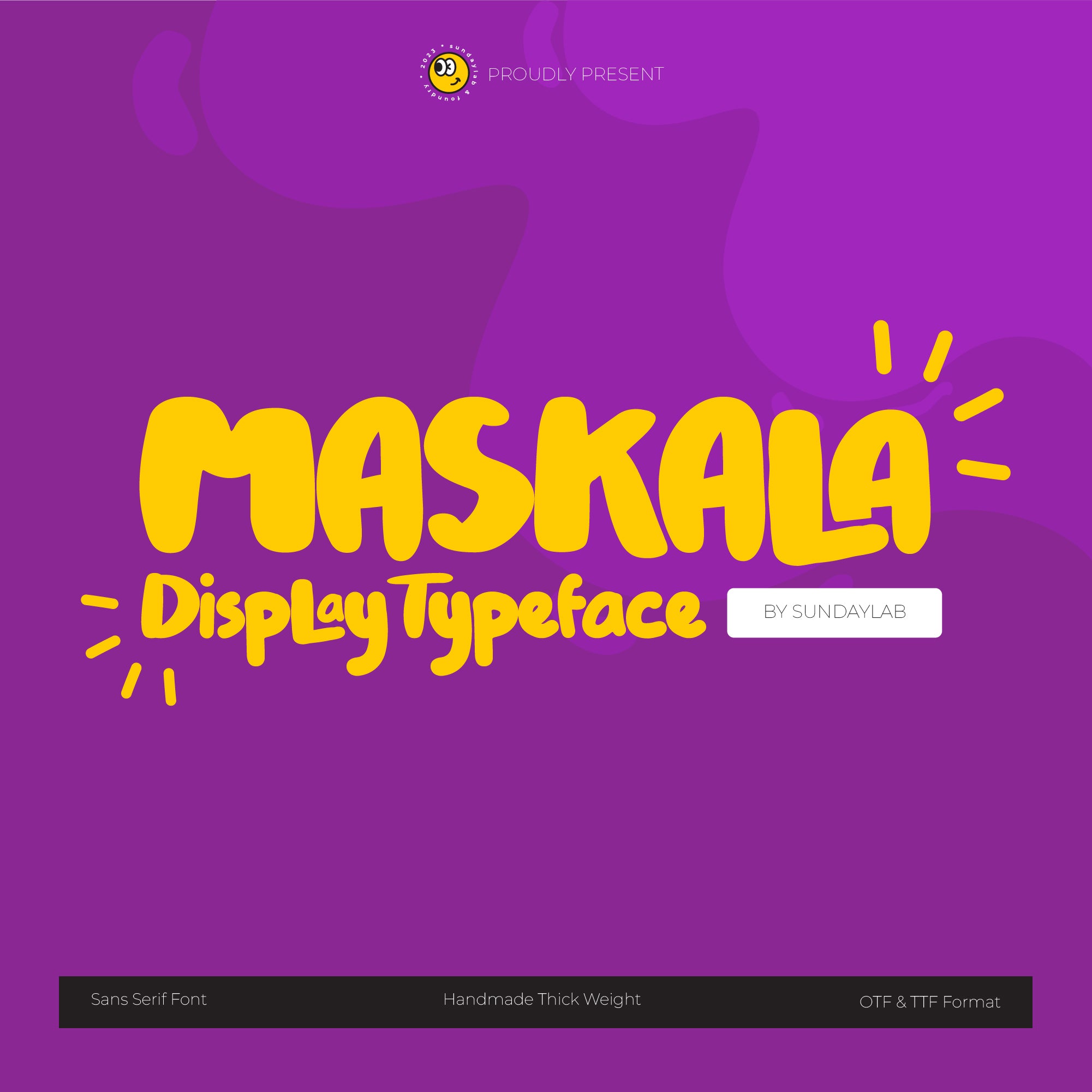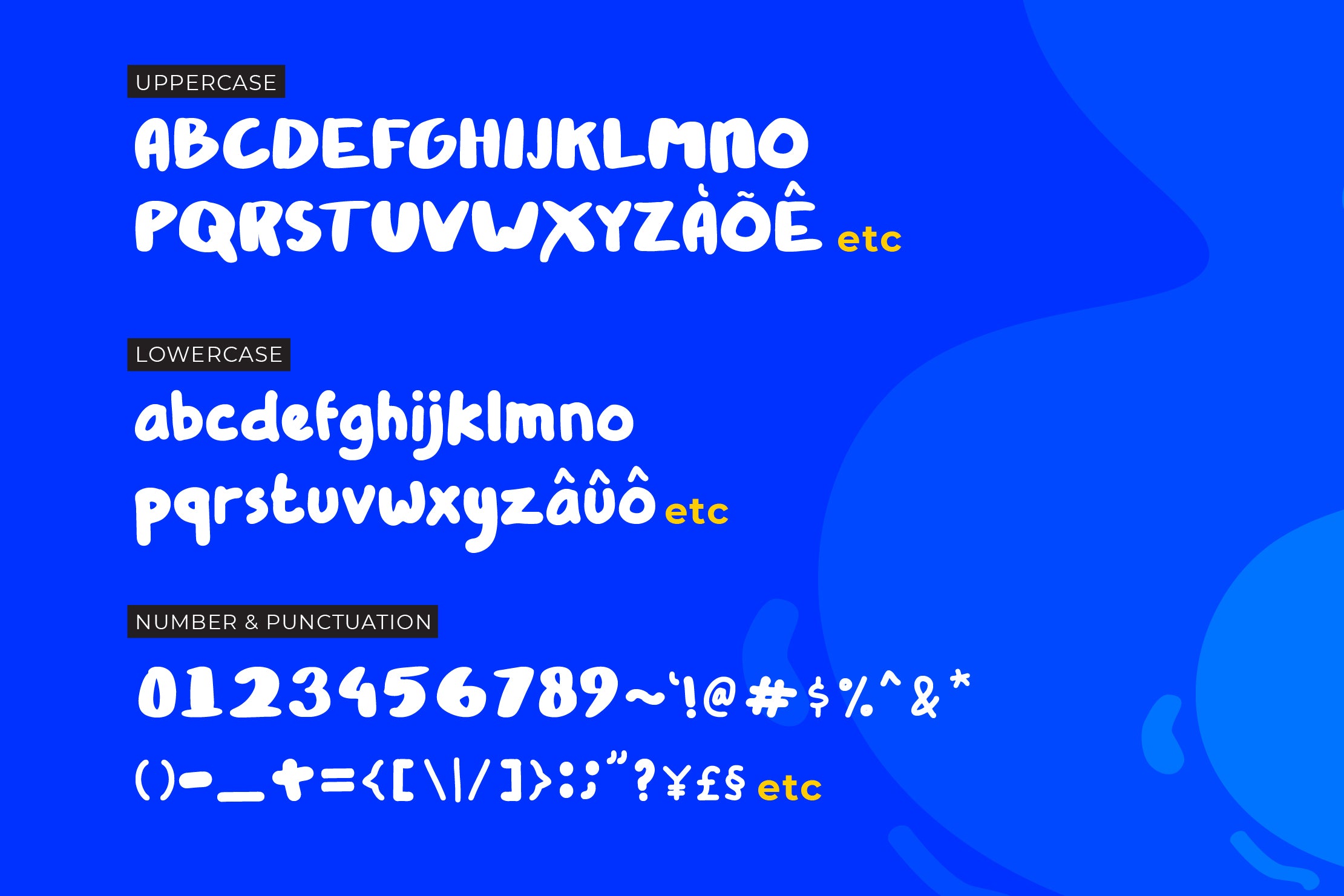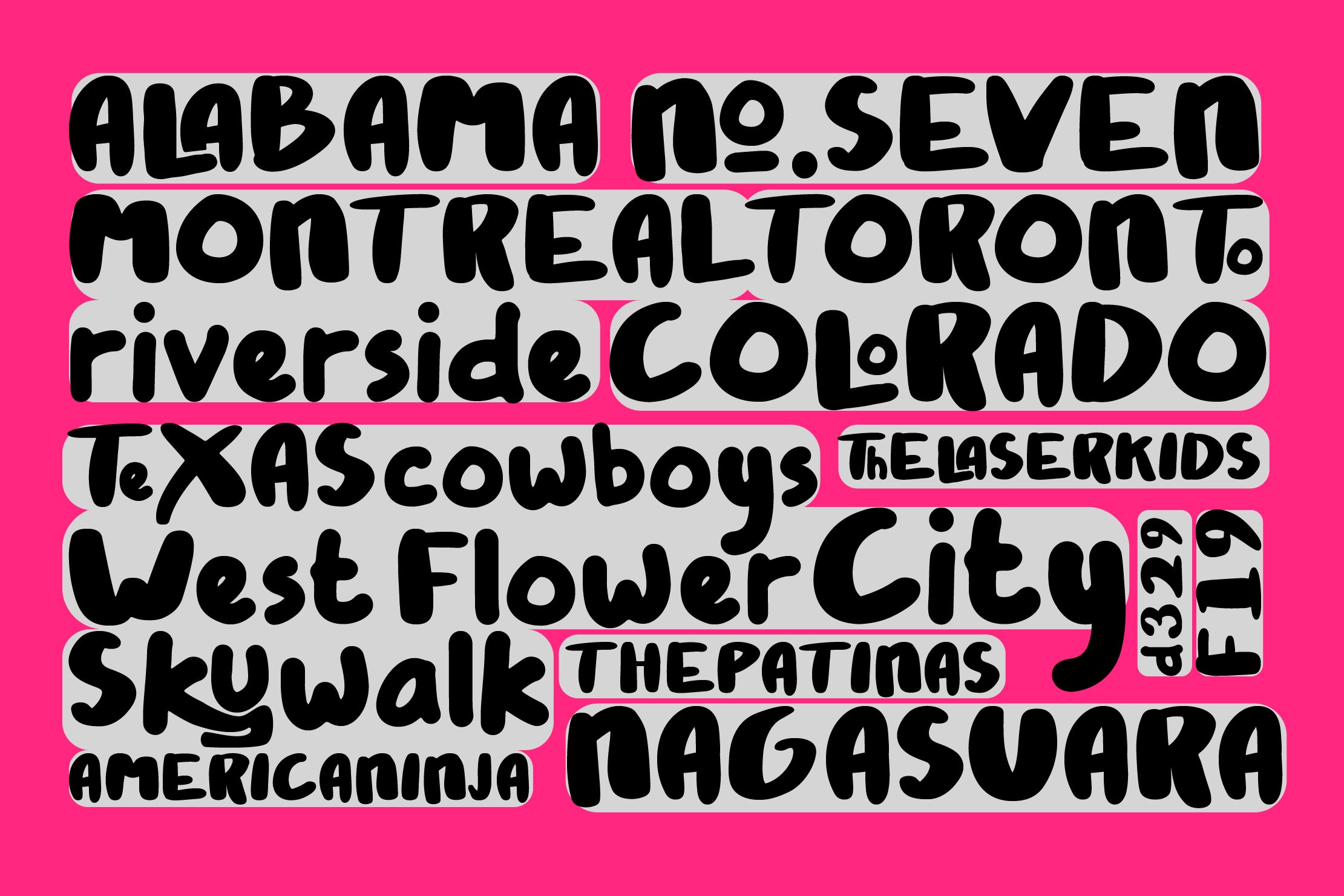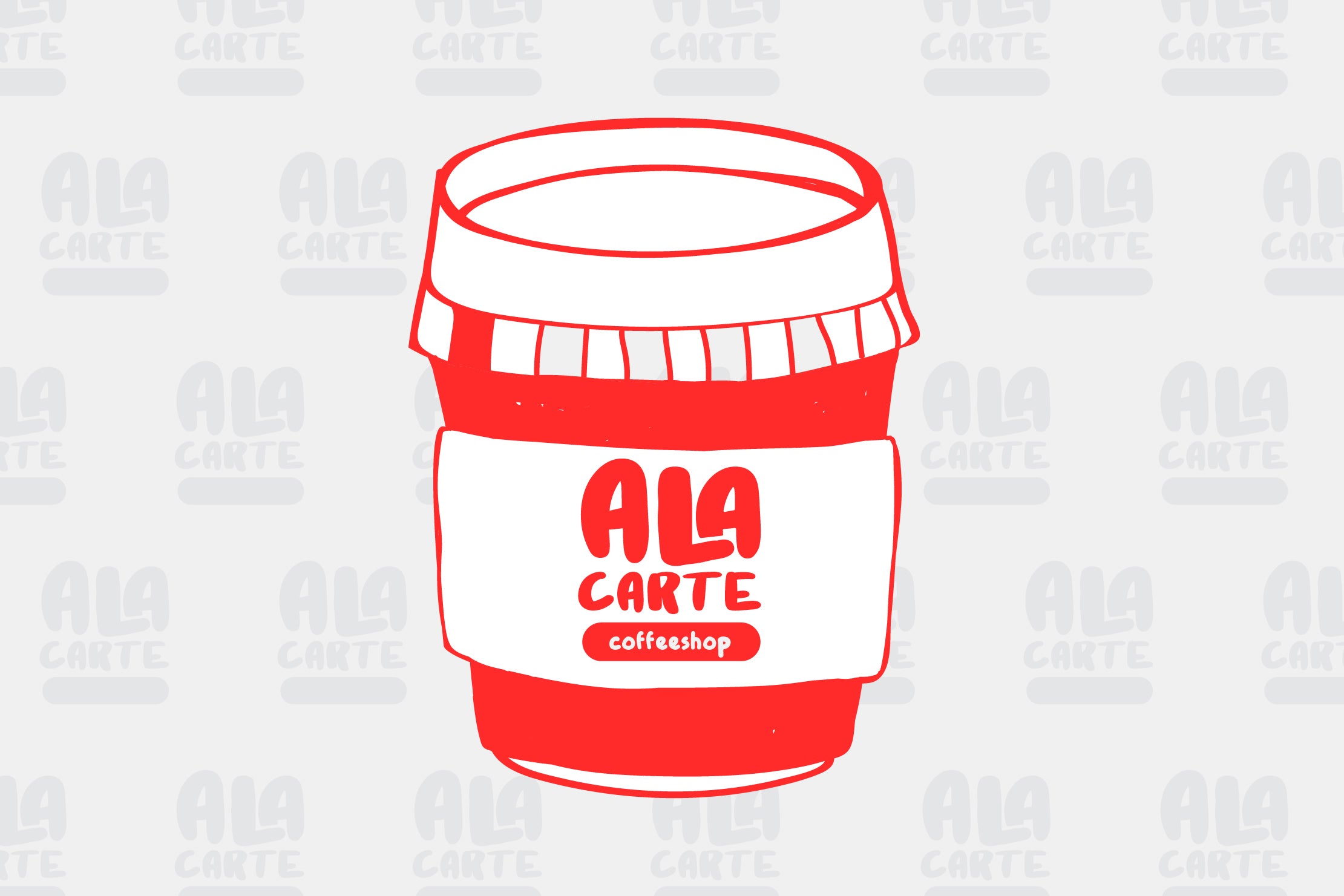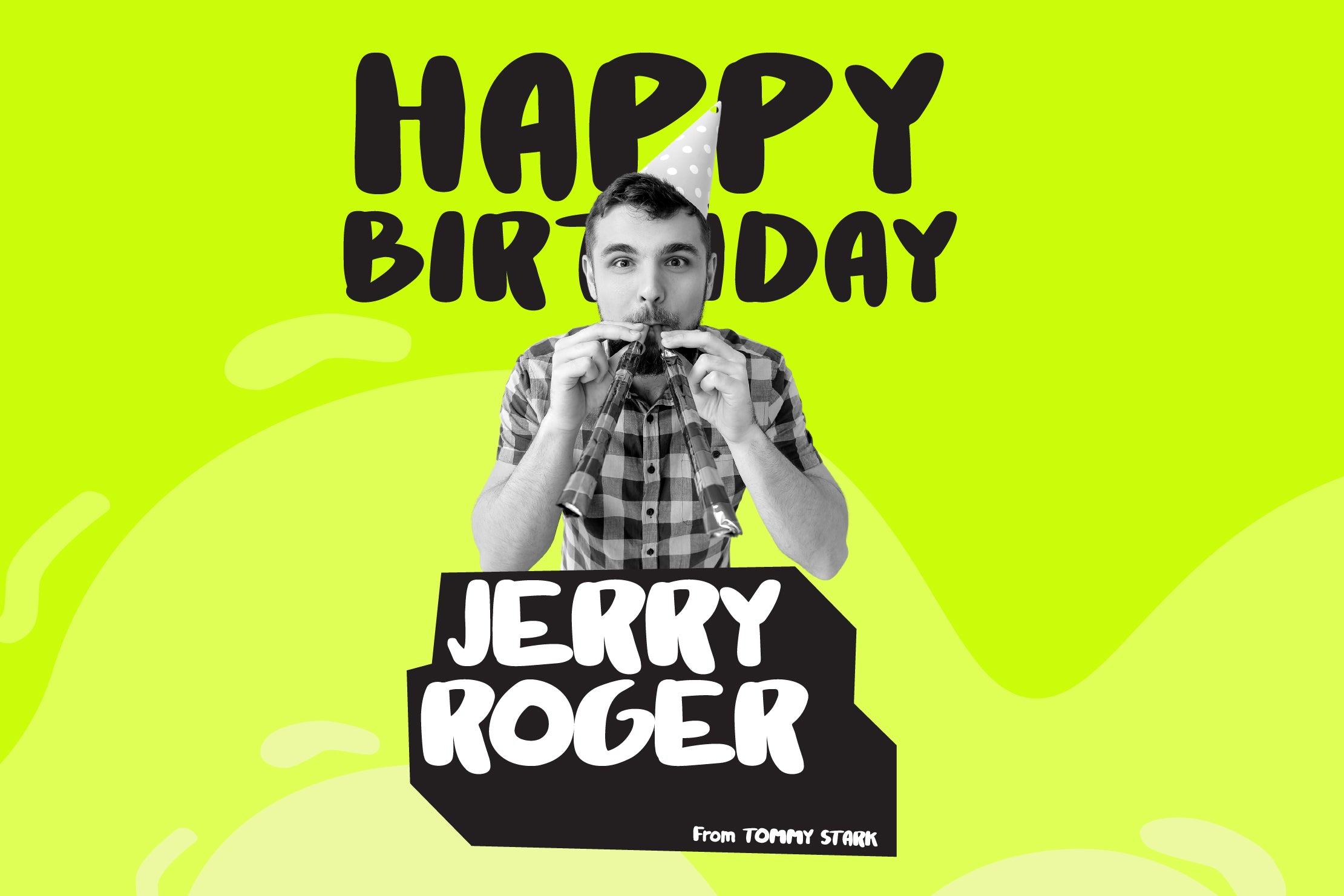
Maskala Typeface
Maskala Typeface is is a bold and playful handmade display typeface with chunky rounded shapes and a fun, friendly personality. Perfect for posters, branding, packaging, food labels, kids projects, invitations, merchandise, social media graphics, and eye-catching headlines.
Maskala Typeface is a bold, handmade display font featuring chunky, rounded shapes. The package includes .otf and .ttf files along with a Read Me document.